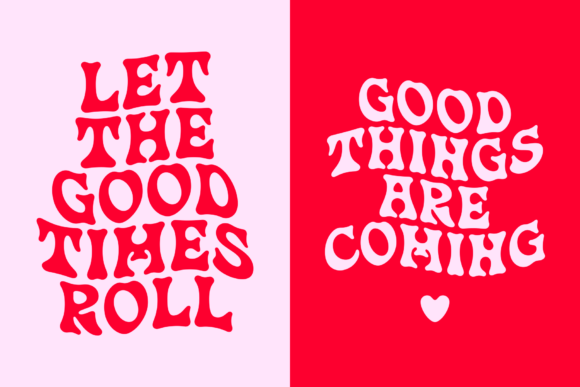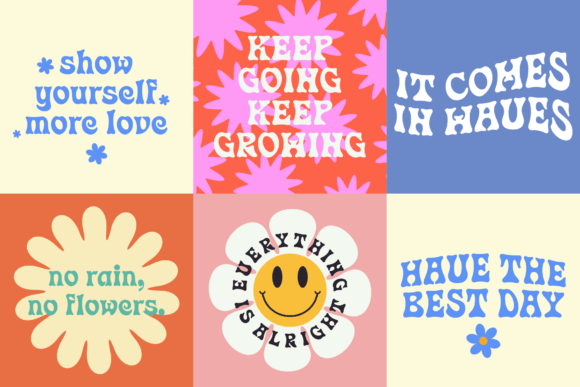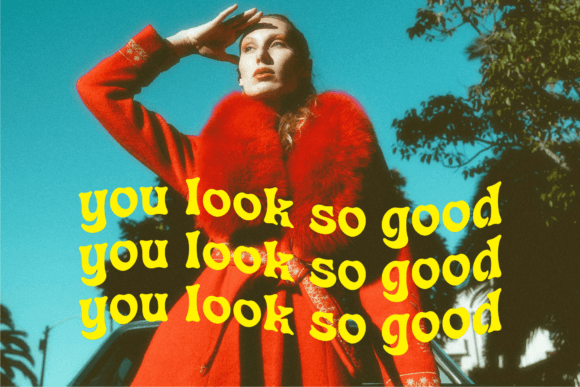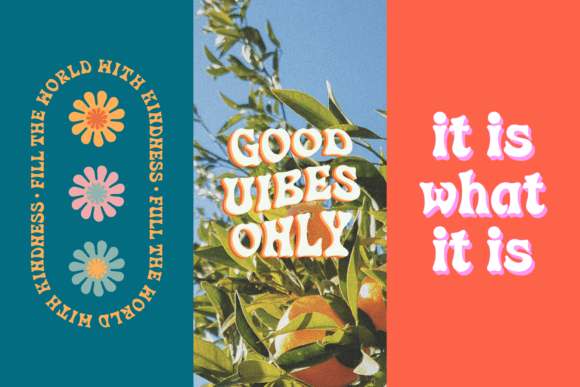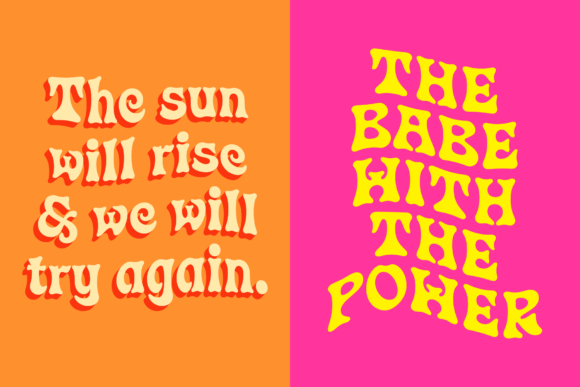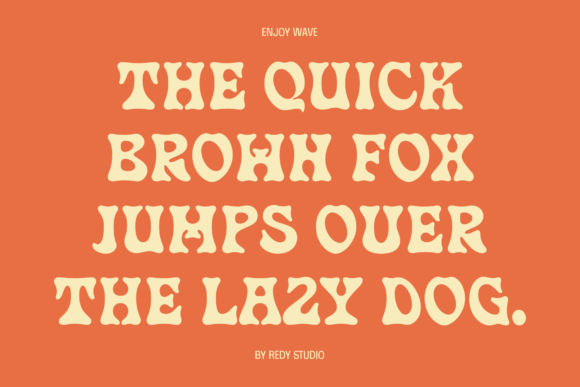
Introduction to Enjoy Wave Font
Want to add a retro flair to your designs.
Enjoy Wave – A Groovy Font is here Inspired by the iconic, free-flowing typography of the 70s, this playful display font combines bold, rounded shapes with a nostalgic yet modern twist.